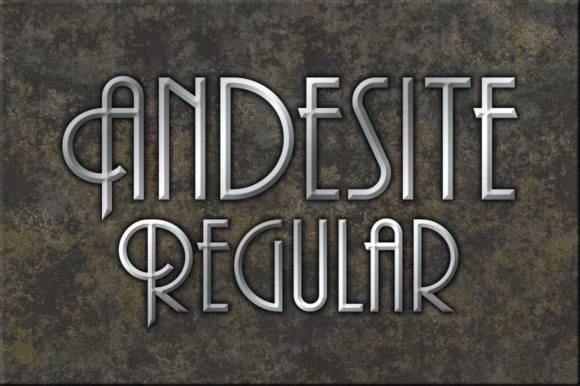
The Perfect Font for Your Next Design Project
Remember the thrill of stumbling upon the perfect font for a project? It’s that moment when all the pieces fall into place, and your design begins to take shape. For designers, finding the right font can be a game-changer. Andesite Regular is one such font that has been making waves in the design community. This Art Deco typeface exudes a distinct retro feel, perfect for adding a touch of sophistication to your next design project.
Whether you’re creating invitations, announcements, or logos, Andesite Font is a valuable addition to your toolkit. Its versatility and unique aesthetic make it an ideal choice for designers looking to add some visual interest to their work. With Andesite Font, you can create designs that stand out from the crowd and leave a lasting impression.
Andesite Font Key Features
- Font Family: Andesite
- Unique Characteristics: Geometric sans-serif design, clean and modern aesthetic, suitable for digital and print applications
- Font Style: Supports regular and bold font styles
Andesite Font Review
Andesite Font is a modern sans-serif font designed to convey a sense of luxury and sophistication. Here are my thoughts on this font.
- ✨ Elegant and refined lines that make it perfect for high-end branding.
- ✨ Great for use in headings and titles where you want to make a statement.
- ✨ Works well in both digital and print applications.
- ✨ Highly customizable to fit your design needs.
- ⚠️ May not be suitable for use in body text due to its luxurious feel.
- ⚠️ Can be quite bold, so be cautious when using it in smaller sizes.
- ⚠️ Limited language support, may not be suitable for multilingual projects.
Overall, Andesite Font is a solid choice for designers who want to add a touch of elegance to their designs. While it may have some limitations, its benefits make it a worthwhile addition to any design arsenal. With the right use, it can elevate your designs and leave a lasting impression on your audience.
Andesite Font is ideal for creating modern, sans-serif designs in Canva. Use it for headings and titles to add a touch of sophistication.
Andesite Font is perfect for creating clean and minimalistic designs in Adobe Photoshop and Illustrator. Use it for logos, headings, and body text.
Andesite Font is suitable for creating professional-looking presentations and documents in PowerPoint and Word. Use it for headings, titles, and body text.
Andesite Font is ideal for:
- Modern branding and logos
- Minimalistic designs and typography
- Professional presentations and documents
Remember to use Andesite Font consistently throughout your design to create a cohesive and recognizable brand identity.
Alternative Fonts to Andesite Font for Designers
Bebas Neue is a modern sans-serif font that is ideal for use in digital products, such as websites and mobile apps. It is highly legible and has a clean, minimalist aesthetic that makes it perfect for headings and titles. Bebas Neue is a more geometric and modern font compared to Andesite Font, which has a more organic feel.
Montserrat is a sans-serif font that is inspired by urban typography and is ideal for use in modern, urban environments. It is highly legible and has a strong, geometric aesthetic that makes it perfect for use in headings and titles. Montserrat is a more formal and structured font compared to Andesite Font, which has a more casual feel.
Lato is a sans-serif font that is highly legible and has a clean, modern aesthetic. It is ideal for use in digital products, such as websites and mobile apps, and is perfect for use in headings and titles. Lato is a more versatile font compared to Andesite Font, which has a more distinctive feel.
Open Sans is a sans-serif font that is highly legible and has a clean, modern aesthetic. It is ideal for use in digital products, such as websites and mobile apps, and is perfect for use in body text as well as headings and titles. Open Sans is a more neutral font compared to Andesite Font, which has a more distinctive feel.